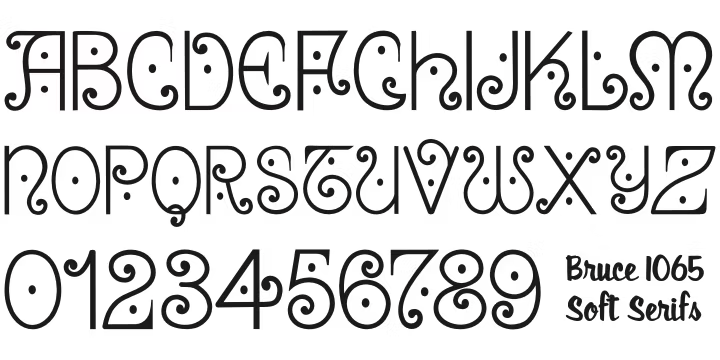
Bruce 1065
Font Family by Intellecta Design
Bruce 1065 is a digitization of the 1065 font from Bruce's and Sons Typefoundry, from victorian times, in America.